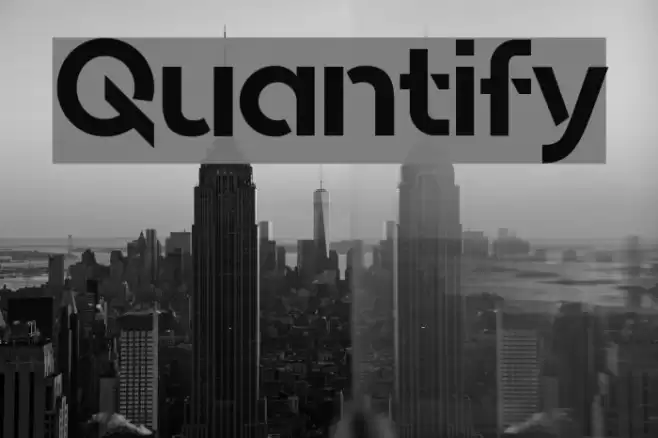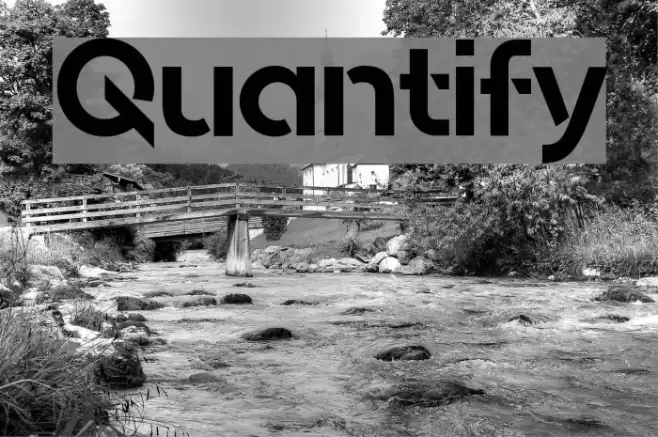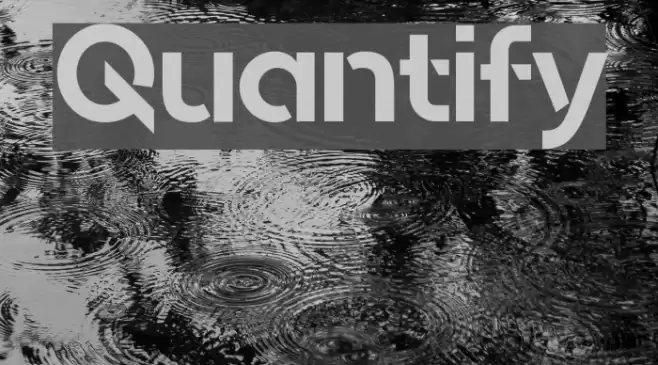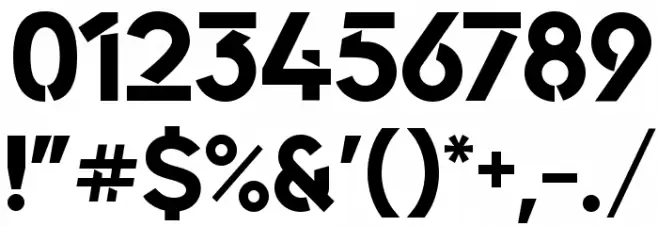
Quantify Font
Quantify Description
This font features a bold and geometric design, characterized by sharp angles and clean lines. The uppercase letters exhibit a strong presence with their angular cuts and consistent stroke width, creating a modern and assertive look. The lowercase letters maintain the geometric theme, offering a harmonious balance between curves and straight edges. Numerals are equally bold, ensuring readability and uniformity across different contexts. Special characters are designed with the same attention to detail, making them suitable for various applications. The overall aesthetic is contemporary and impactful, ideal for making a statement.
A bold, geometric font with sharp angles and clean lines, perfect for modern designs from Uncategorized fonts.
- Proposed Projects: Ideal for branding, advertising, headlines, and any project requiring a strong, modern aesthetic.
- Use Case: Headlines, Logos, Branding